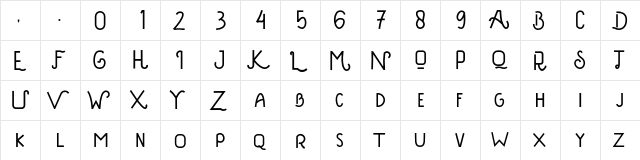
DAVINA - VINTAGE FONT Regular
Design Context for DAVINA - VINTAGE FONT Typeface
DAVINA - VINTAGE FONT wears its vintage influences proudly, with letterforms that recall mid-century signage, classic packaging, and nostalgia-driven design.